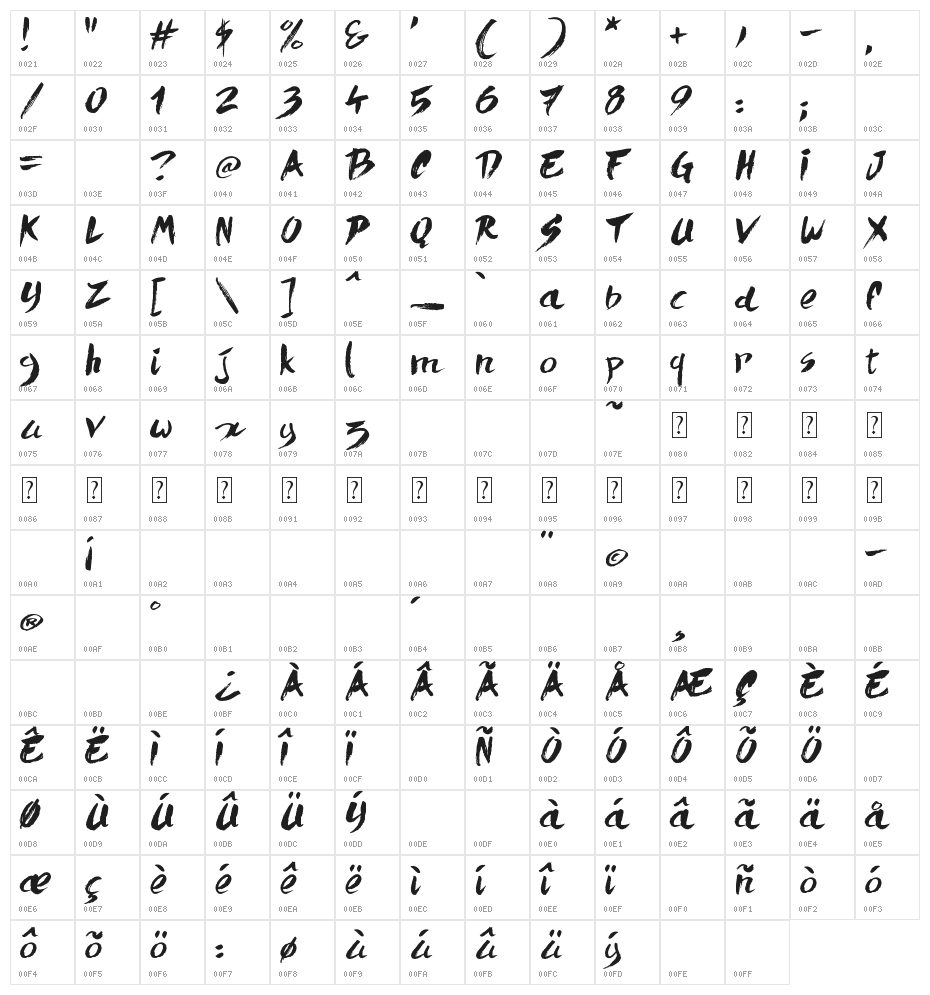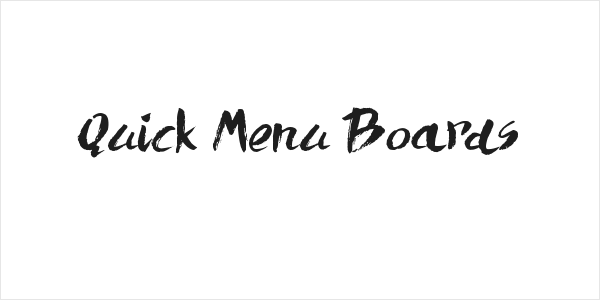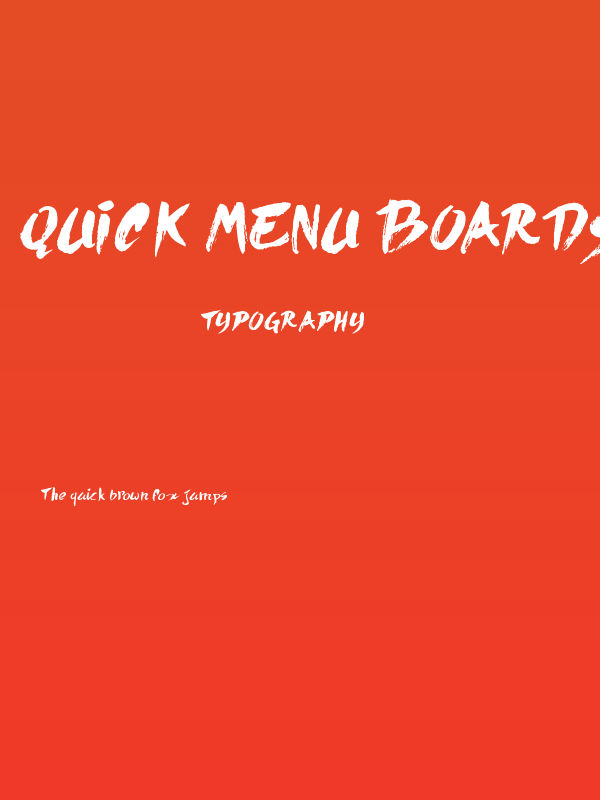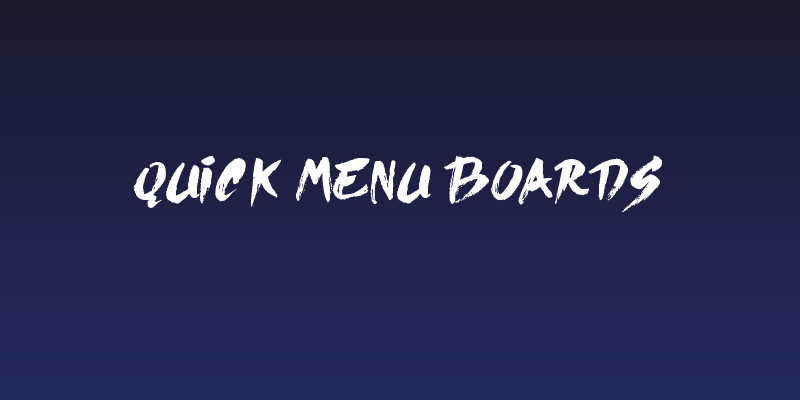
Quick Menu Boards Font
Quick Menu Boards Description
This font features a bold, expressive style with a brush-like texture that gives it a dynamic and energetic appearance. The characters are crafted with a sense of movement, as if painted with swift, confident strokes. The uppercase letters are particularly striking, with sharp angles and varying thickness that add to the font's dramatic flair. The lowercase letters maintain this energetic style, offering a cohesive look across the alphabet. Numbers and special characters are equally bold, ensuring consistency throughout. The overall impression is one of creativity and spontaneity, making it ideal for projects that require a strong visual impact.
| Proposed Projects | Ideal for branding, poster design, album covers, and any creative project that requires a bold, artistic touch. |